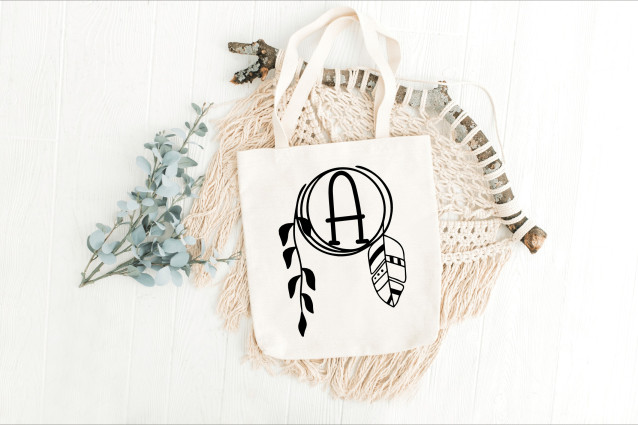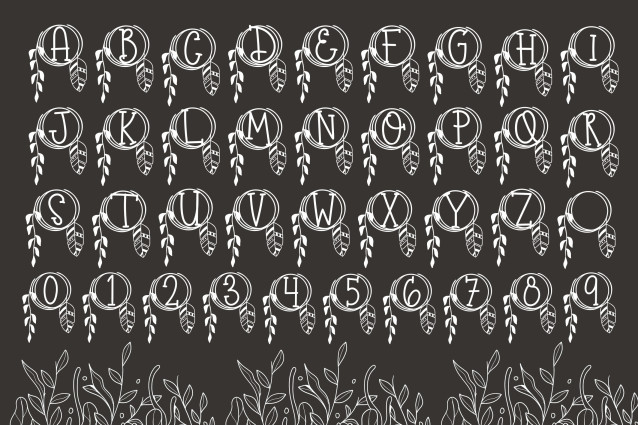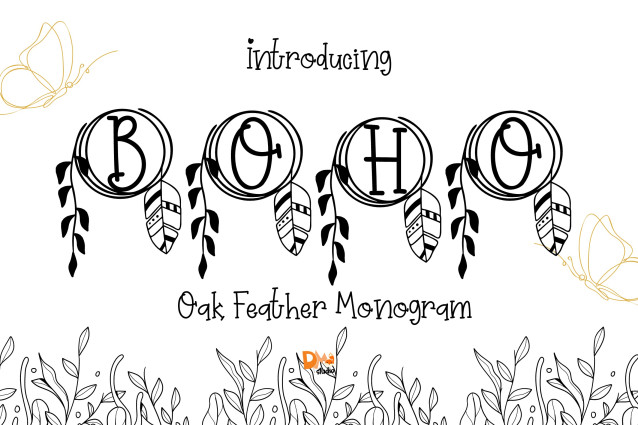
Oak Feather Monogram Font
Oak Feather Monogram Font is a refined serif monogram font featuring graceful uppercase letters adorned with a blend of oak leaves and feather details. Inspired by woodland textures and boho elegance, this font brings organic sophistication to personalized initials, rustic branding, and wedding designs.